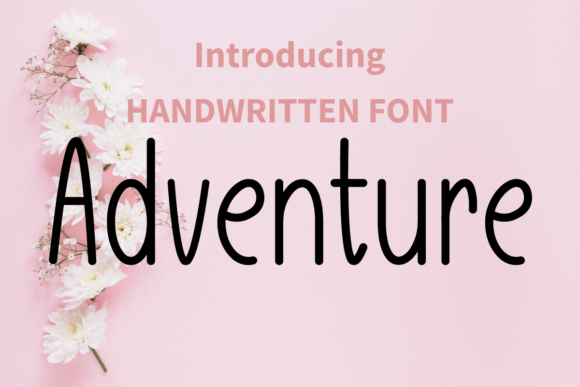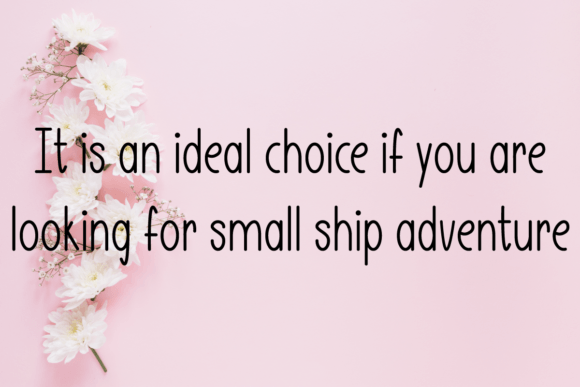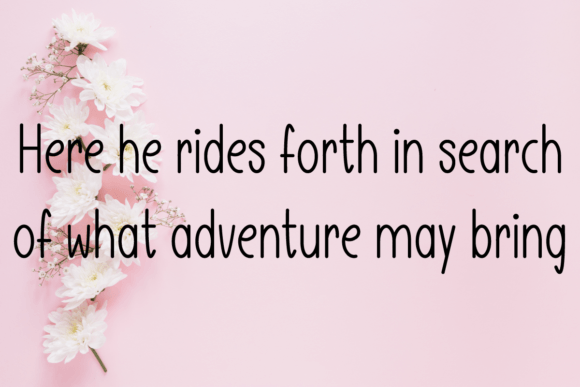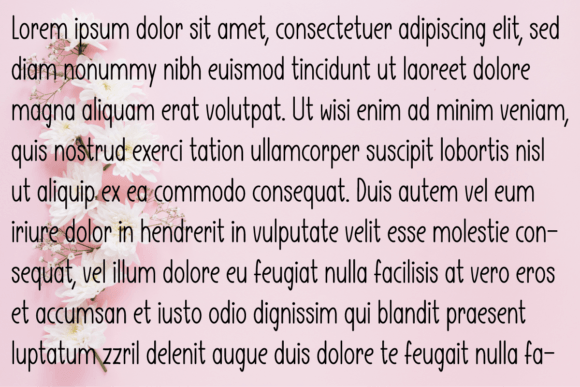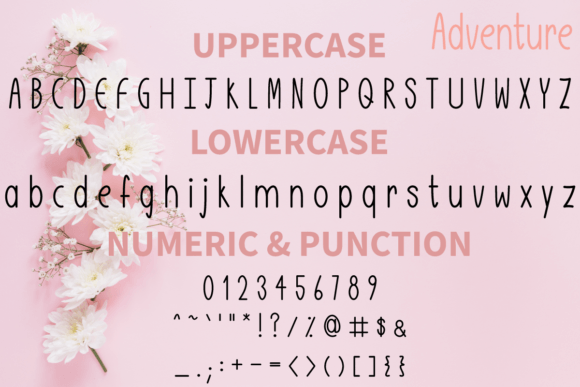
The Adventure Font Download is a whimsical handwritten script created to bring fun and charm to any project. With a friendly style and slightly quirky personality, it brightens up designs effortlessly. Whether you are making logos, invitations, or digital graphics, this font adds creativity and character while staying easy to read.
A Whimsical Script with Playful Energy
The Adventure script font combines natural handwritten strokes with a balanced rhythm. As a result, it feels both approachable and stylish. Furthermore, it adapts seamlessly to small stationery items and bold display projects, which makes it versatile for designers.
Handwritten fonts always make personal designs more memorable. The Adventure Font is ideal for wedding invitations, thank you notes, birthday cards, and holiday greetings. Because of its playful flow, each design looks polished and heartfelt. In addition, it helps create warm, unique stationery.
Branding and Logo Design with Adventure Font
Typography plays a powerful role in shaping brand identity. The Adventure handwritten font works beautifully for boutique logos, packaging, and promotional content. Its fun yet professional strokes make businesses look approachable and stylish. Therefore, it is especially suitable for lifestyle, fashion, and creative brands.
Posters, Magazines, and Creative Displays
The Adventure Font Download is also excellent for posters, banners, magazines, and book covers. It remains clear at all sizes while adding whimsical handwritten charm. Consequently, it is a trusted choice for designers who want both creativity and readability in their layouts.
In today’s online world, fonts must be engaging and flexible. The Adventure typeface integrates smoothly into Instagram posts, Pinterest boards, YouTube thumbnails, and blogs. Because of its quirky style, it makes digital content stand out with a fun and modern vibe.
Why Designers Choose Adventure Typeface
Designers need fonts that balance creativity and usability. The Adventure handwritten script keeps its playful personality while staying legible. This makes it suitable for hobbyists as well as professionals. Moreover, its timeless handwritten energy ensures it remains a relevant choice for years.
Add Whimsical Charm to Your Projects Today